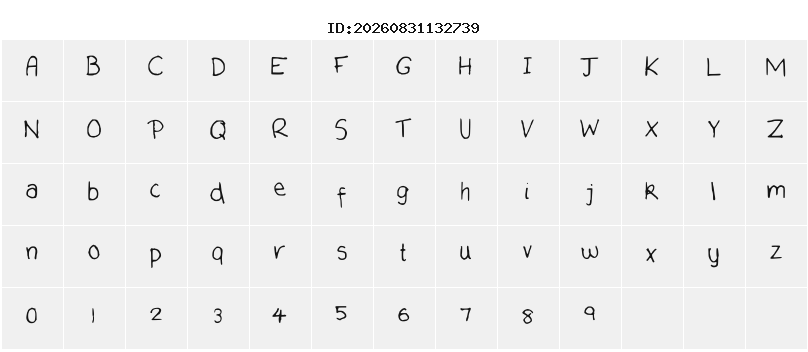
TeenageDream Preview
• Font Name: TeenageDream
About TeenageDream.ttf
TeenageDream.ttf is a modern, elegant sans-serif font designed for ultimate readability and visual harmony. Perfect for branding, headlines, web design, and print materials.